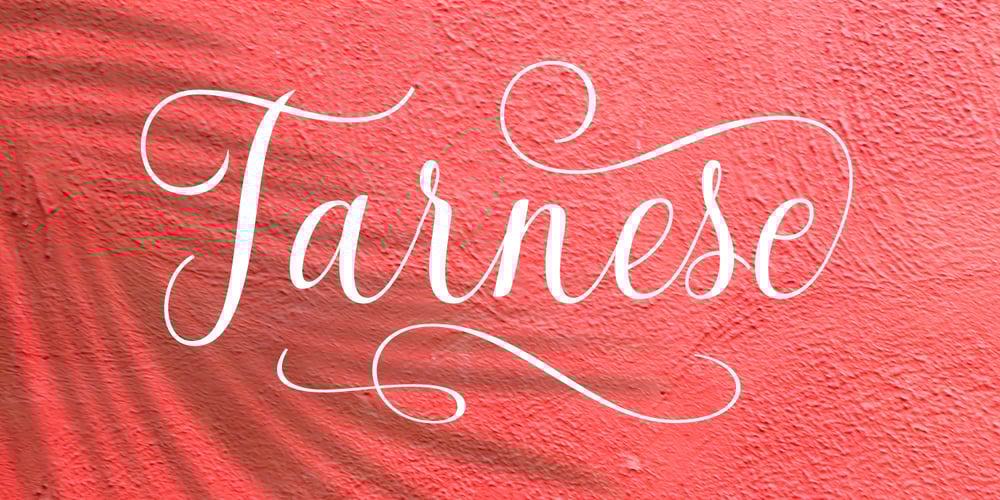
Tarnese Font Family was designed by Carine de Wandeleer and published by Eurotypo. Tarnese contains 1 styles and family package options. Tarnese is a calligraphic font, created to look as close to a natural handwritten script as possible. Tarnese includes over 60 natural-looking open-type ligatures and and a full set of upper and lowercase alternates, making your design more attractive. In the glyph palette you will also find ornaments that can be used for underlining, and to combine and enhance your text.Suitable for use in designing titles, invitations, title books, stationery designs, quotes, branding, logos, greeting cards, packaging, posters, and more.